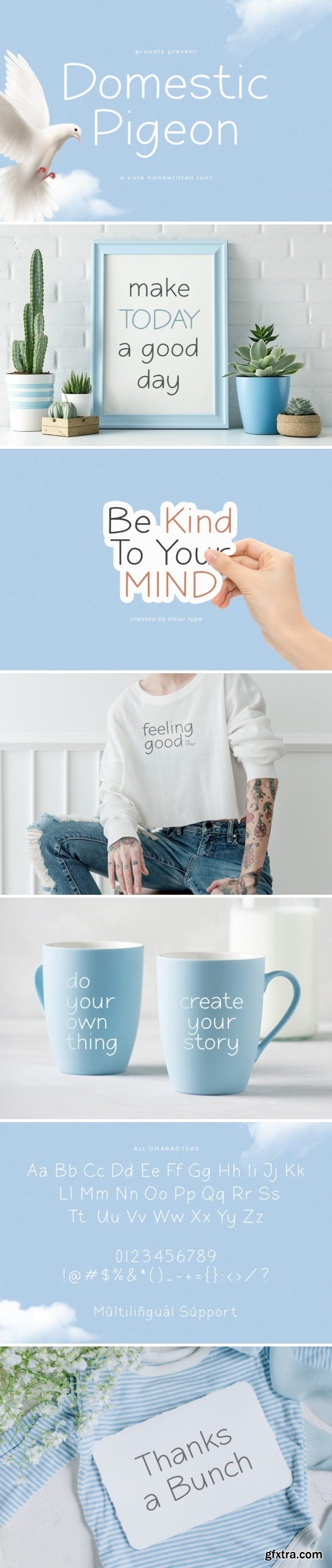
Domestic Pigeon is a sweet and friendly handwritten font. Its natural and unique style makes it incredibly fitting to a large pool of designs. The only limit is your imagination!